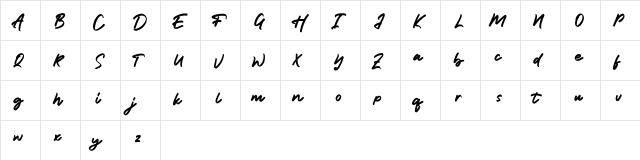
Tumbrella Script Free Regular
| Foundry | Maulana Creative |
| Designer | Maulana Creative |
Design Context for Tumbrella Script Free Typeface
Tumbrella Script Free flows with the natural rhythm of handwritten lettering, making it ideal for designs that call for warmth and personal expression.